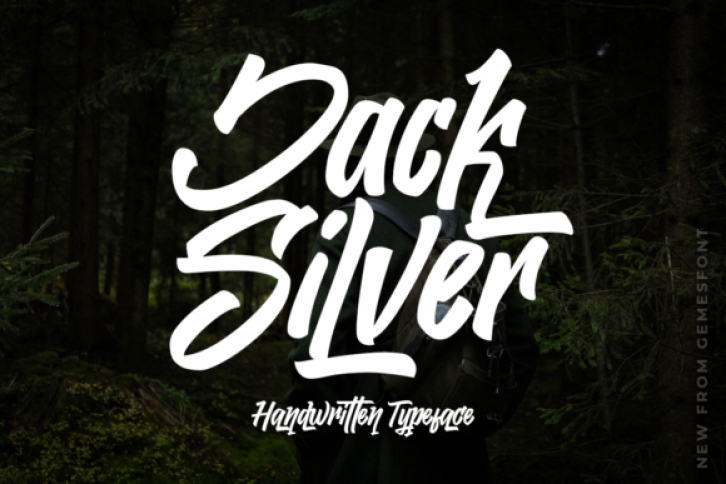
jack Silver is a bold and unique handwritten font. This down-to-earth, readable and, ultimately, incredibly versatile font will look outstanding in any context, whether it’s being used on busy backgrounds or as a standalone headline!